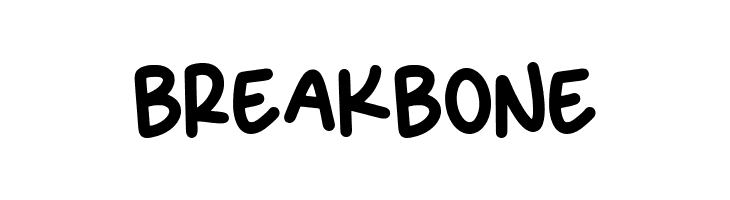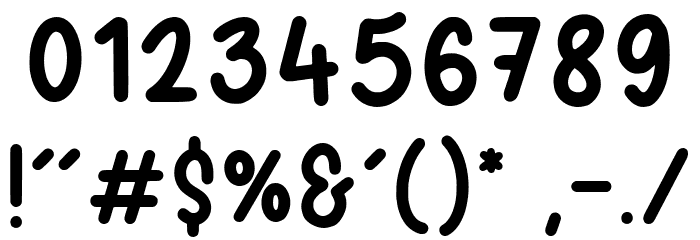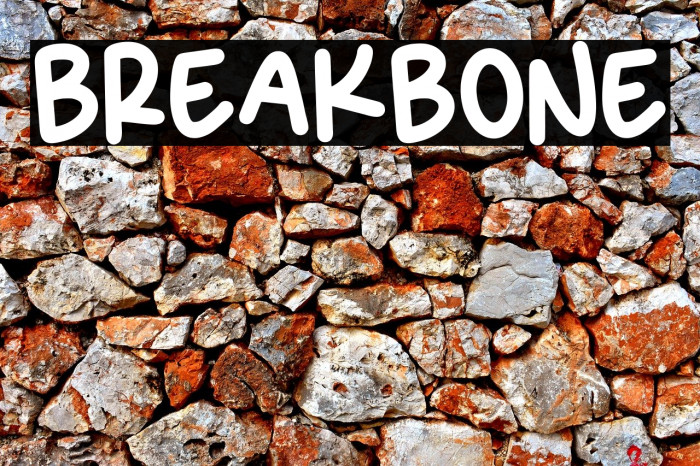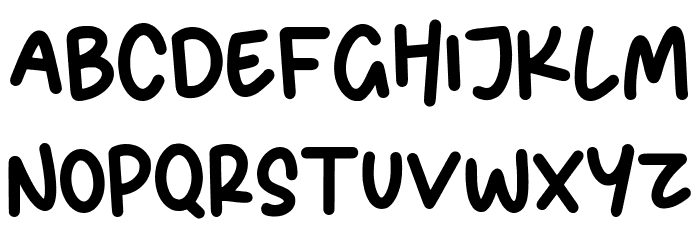
BREAKBONE Font
This playful and bold font features rounded, thick strokes that give it a friendly and approachable appearance. The characters are slightly irregular, adding a hand-drawn, casual feel. The uppercase and lowercase letters maintain a consistent style, with the lowercase letters being slightly smaller but equally bold. The numerals are clear and easy to read, matching the overall style of the alphabet. Special characters are included, maintaining the same playful and bold characteristics. This font is perfect for projects that require a fun and informal touch.
A playful, bold font with rounded, hand-drawn characters.
• Proposed Projects: Ideal for children's books, playful branding, casual invitations, and social media graphics.
• Category: Handwritten
• Bold: Yes
• Italic: No
• Weight: Bold
• Width: Normal
• Character Spacing: Normal
• Contrast: Low
• Overall Style: Casual
• Use Case: Headlines, Logos, Posters